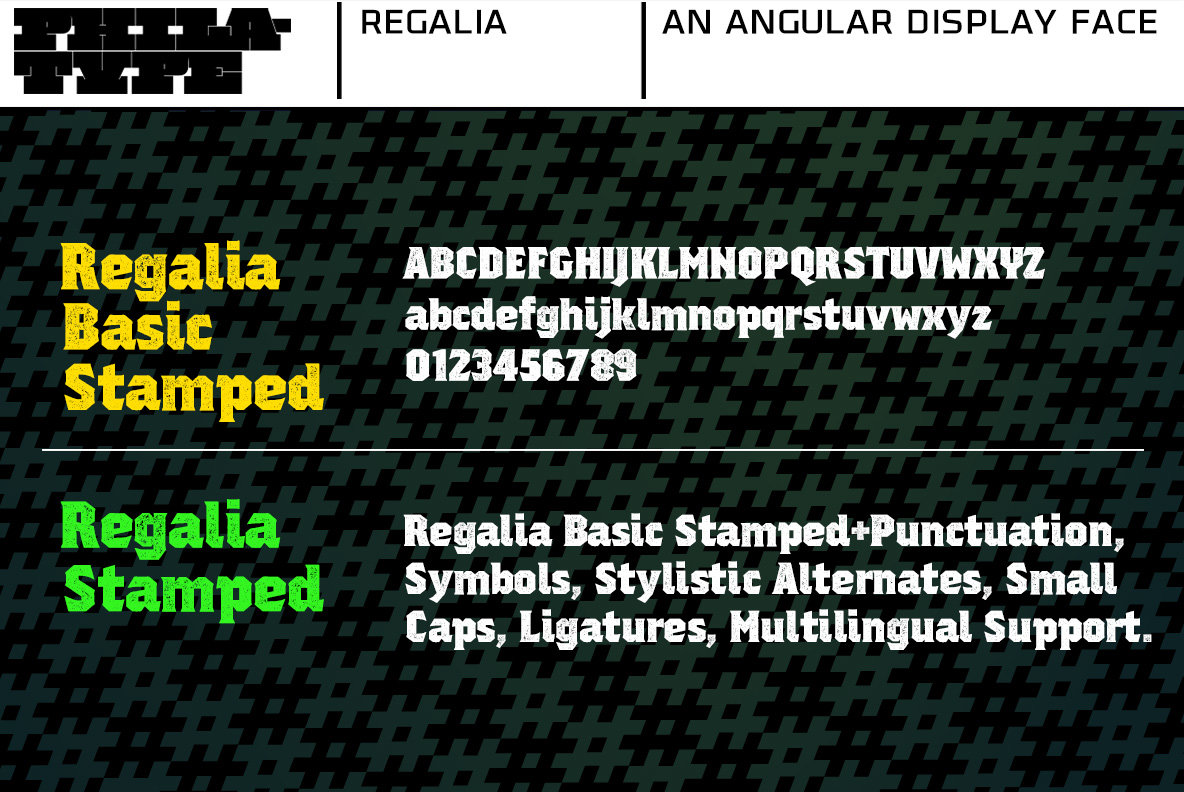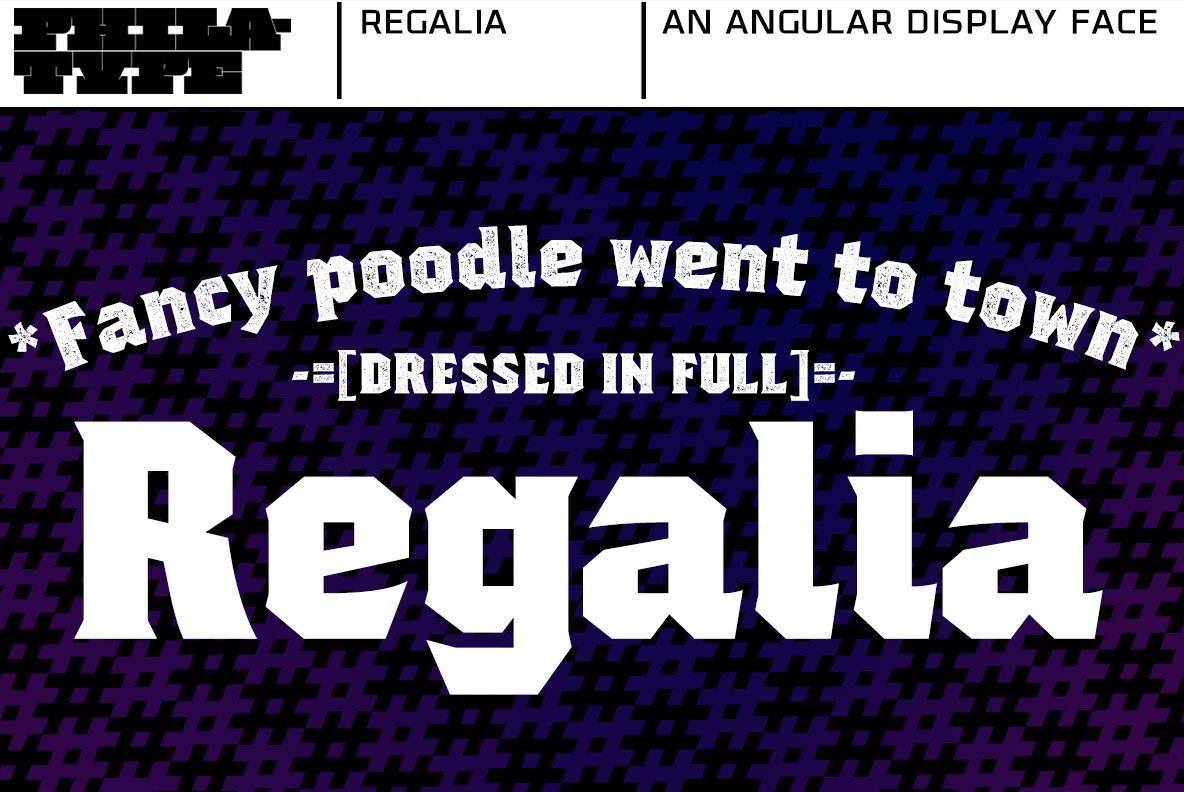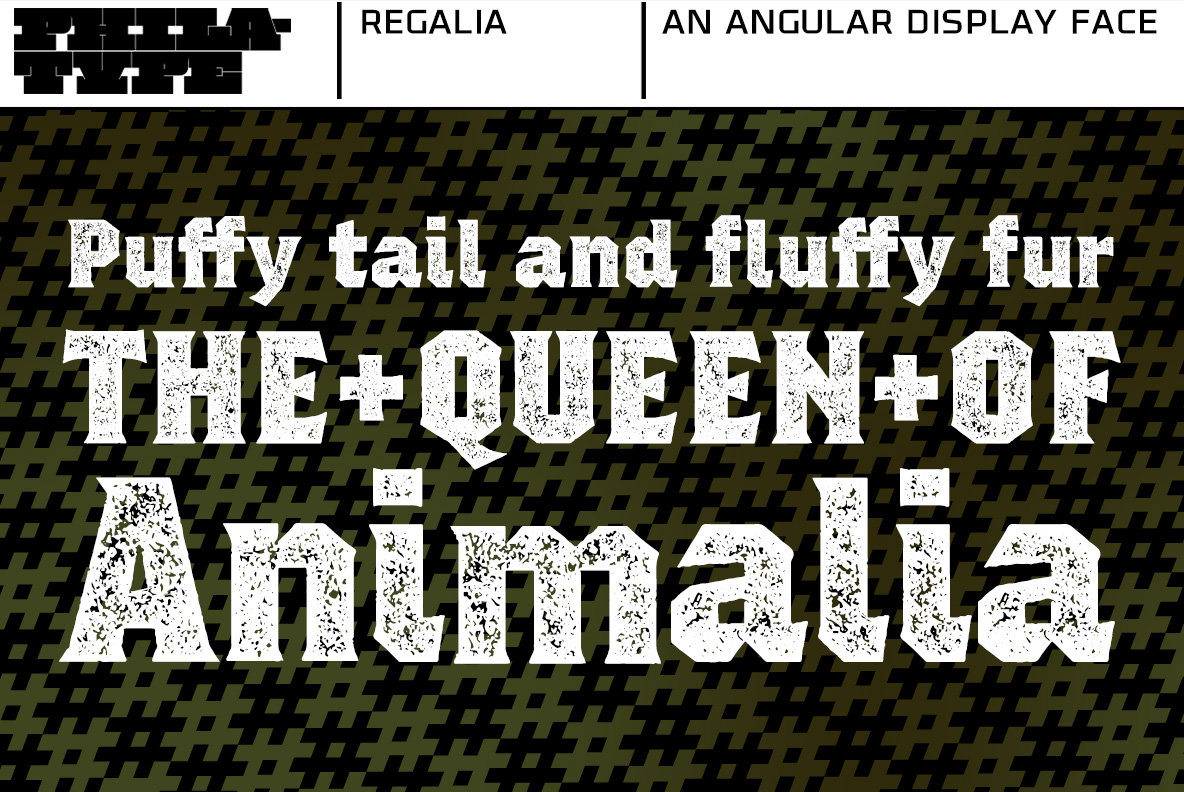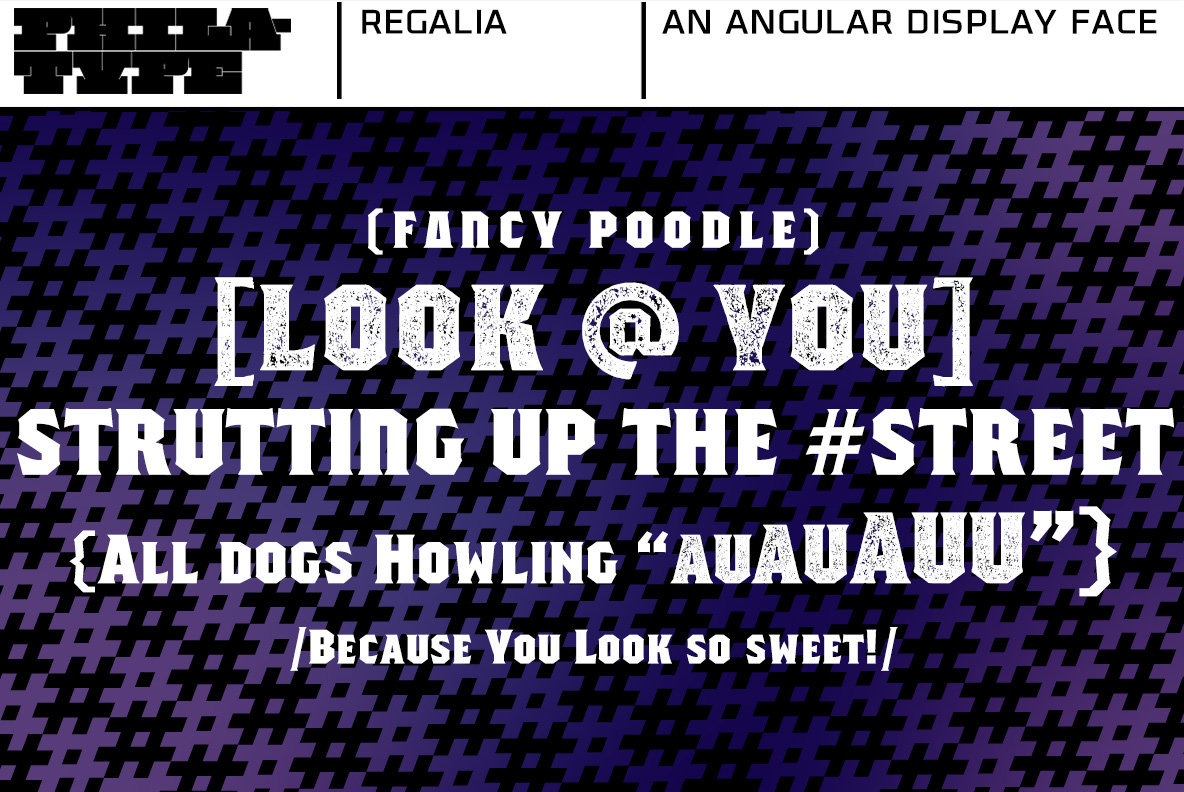
Regalia is an angular display face created with octagonal forms. There are 4 fonts to suit your needs. Regalia Basic and Regalia Basic Stamped includes only the alphabet and numerals; perfect for simple poster or logo work. For more comprehensive typesetting needs, you can find full character sets in Regalia and Regalia Stamped.